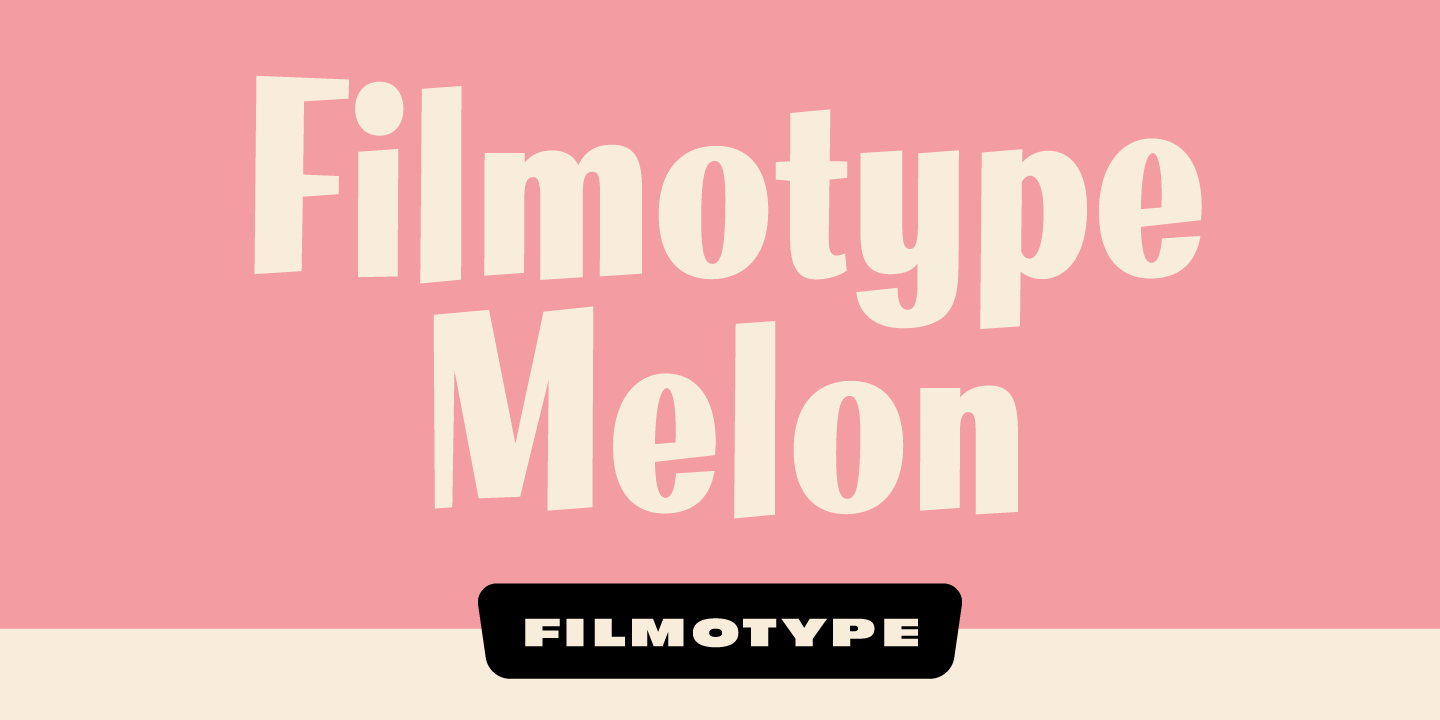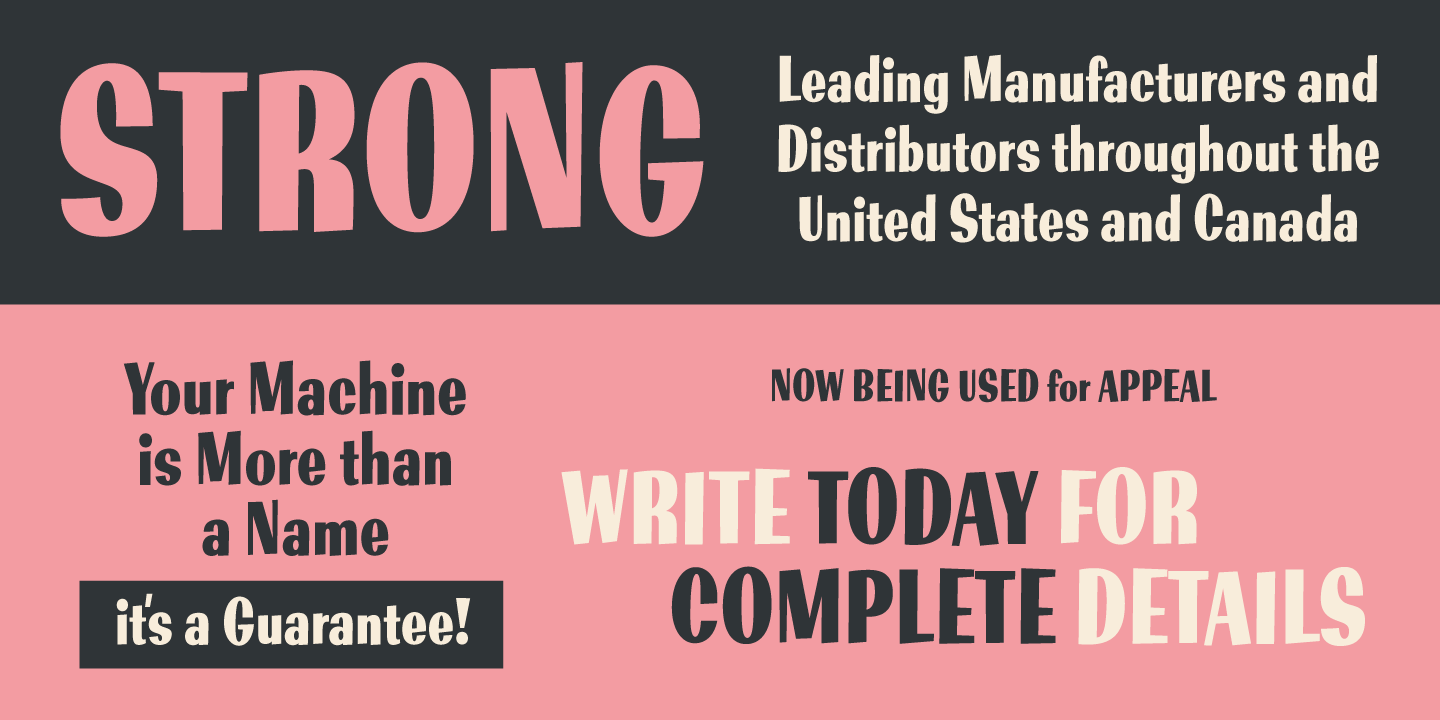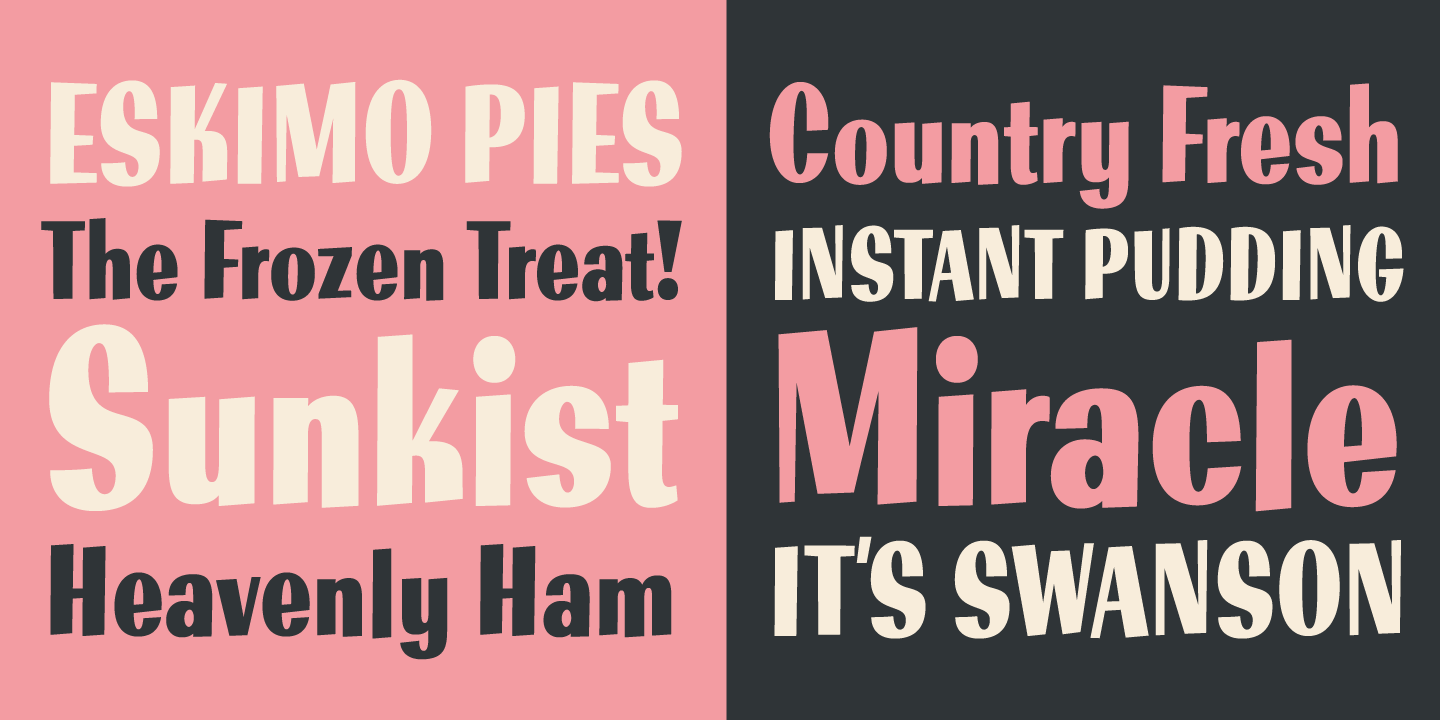
Filmotype Melon
Originally released in the late 1950s, Filmotype expanded it's Free Style typeface category with the introduction of Melody, an offbeat Googie era doo-wop typeface which was most frequently associated with music and entertainment lettering styles throughout the last 1950s and early 1960s just as Elvis and the Beatles were making the scene. To expand the versatility of this wonderful typeface, designer Rian Hughes developed and remastered new condensed and expanded versions of Melody called Melon and Mellow respectively.